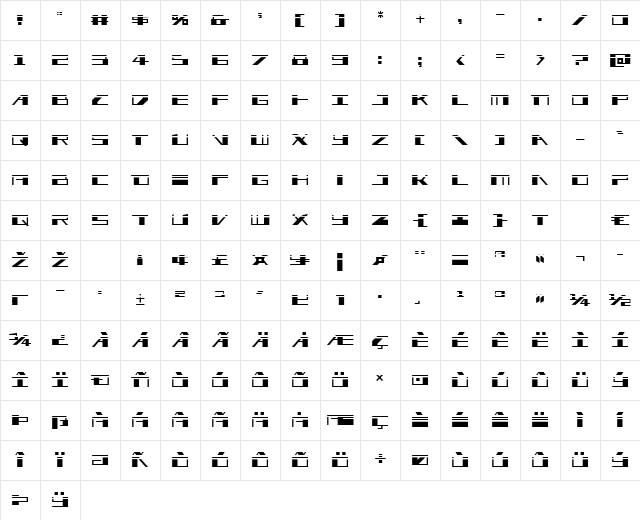
Complete 3AGLE Laser Regular glyph index. Displaying only characters natively supported by 3AGLE Laser Regular font.
3AGLE Laser is a composed and adaptable typeface that performs quietly and consistently across a wide range of design contexts.